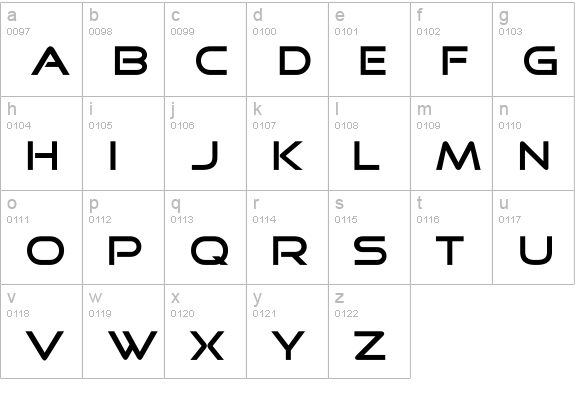
GoodTimes Font Details
Introducing GoodTimes font - a versatile and stylish typeface that exudes elegance and sophistication. With its sleek lines and timeless appeal, GoodTimes is the perfect choice for a wide range of design projects, from invitations and branding to posters and logos. This beautifully crafted font is available for free download at FontsMarket.com, where you can easily access and use it in your creative endeavors. Its clean and modern design makes it suitable for both digital and print applications, ensuring that your projects stand out with a touch of refinement. Whether you're a seasoned designer looking for a new go-to font or a beginner exploring typography for the first time, GoodTimes offers a seamless and enjoyable experience. Embrace the beauty of this free font and elevate your designs with its classic charm and contemporary flair. Download GoodTimes font today and let your creativity shine!